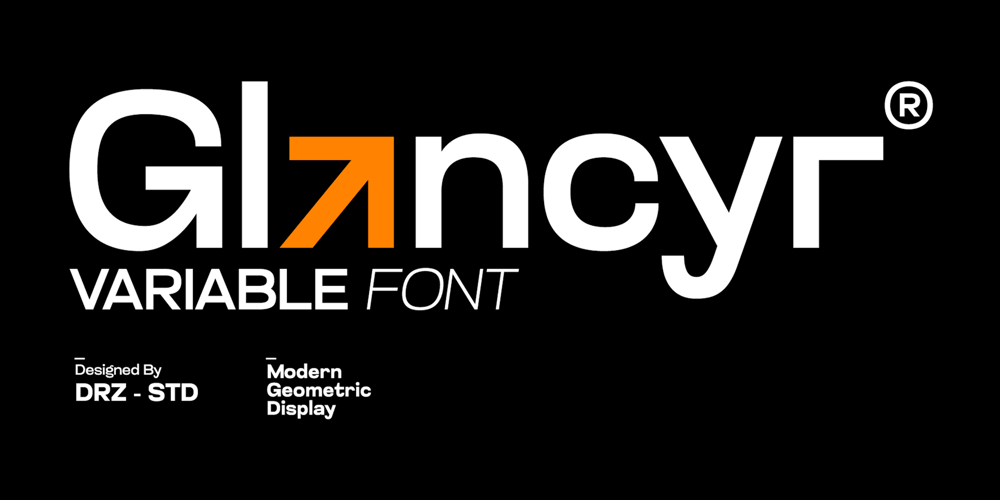
Glancyr Font Family was designed by Panca Ahmadi Hasan and published by Drizy Font. Glancyr contains 14 styles and family package options. Glancyr – Modern Geometric FontGlancyr is a Modern Geometric Font from Drizy Studio. Offering all the styles you need for your projects.Glancyr features:Up Right & ItalicPunctuation & NumbersMultilingual SupportLigaturesAlternates